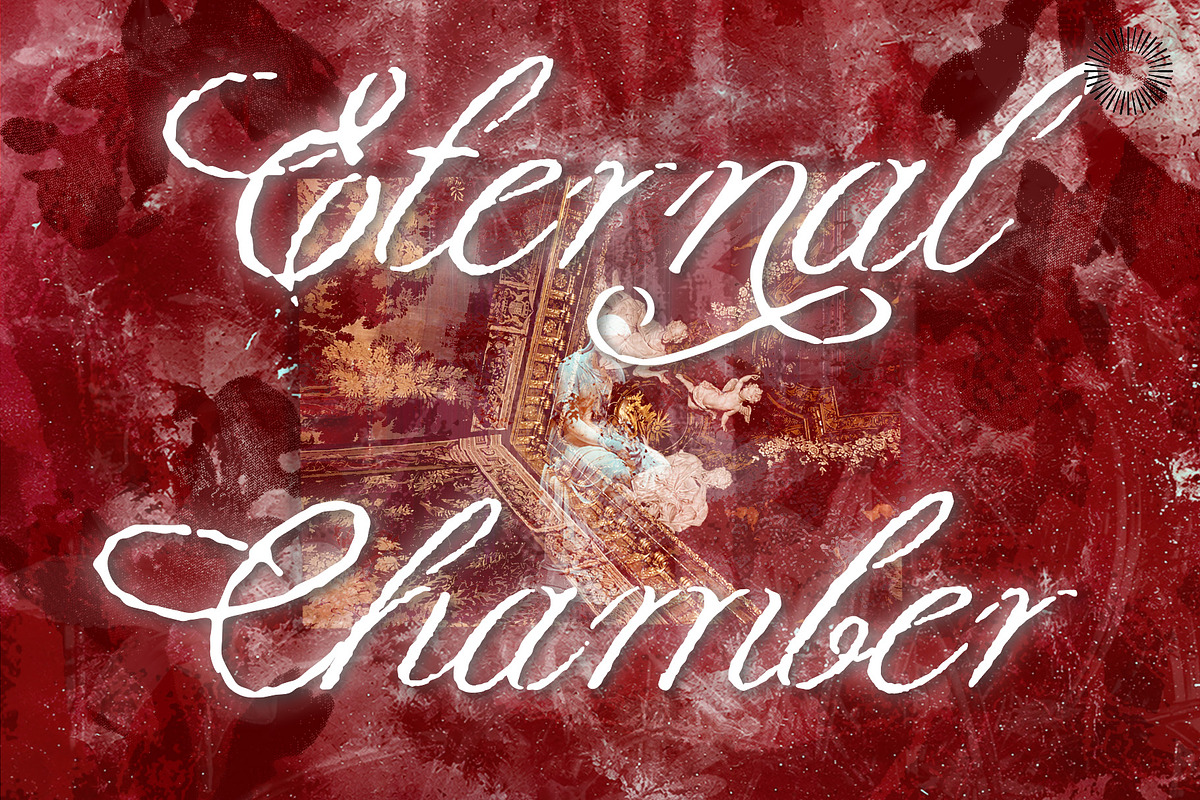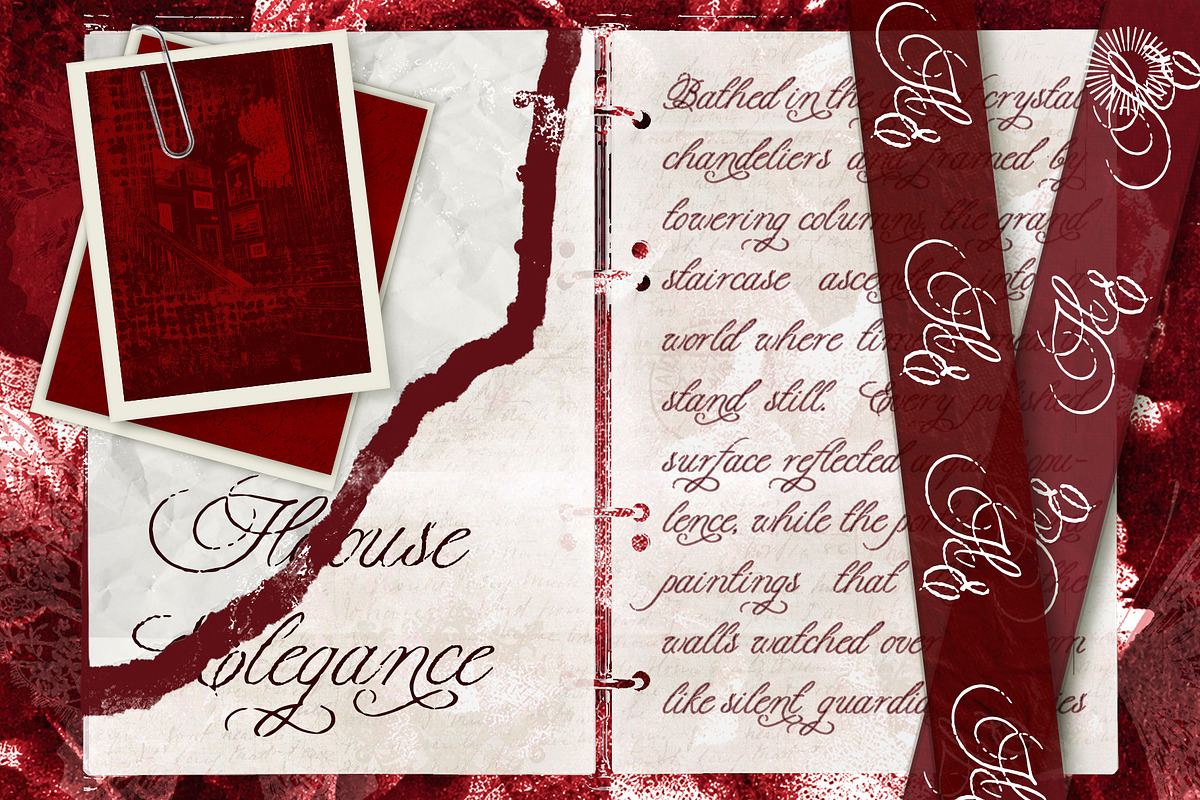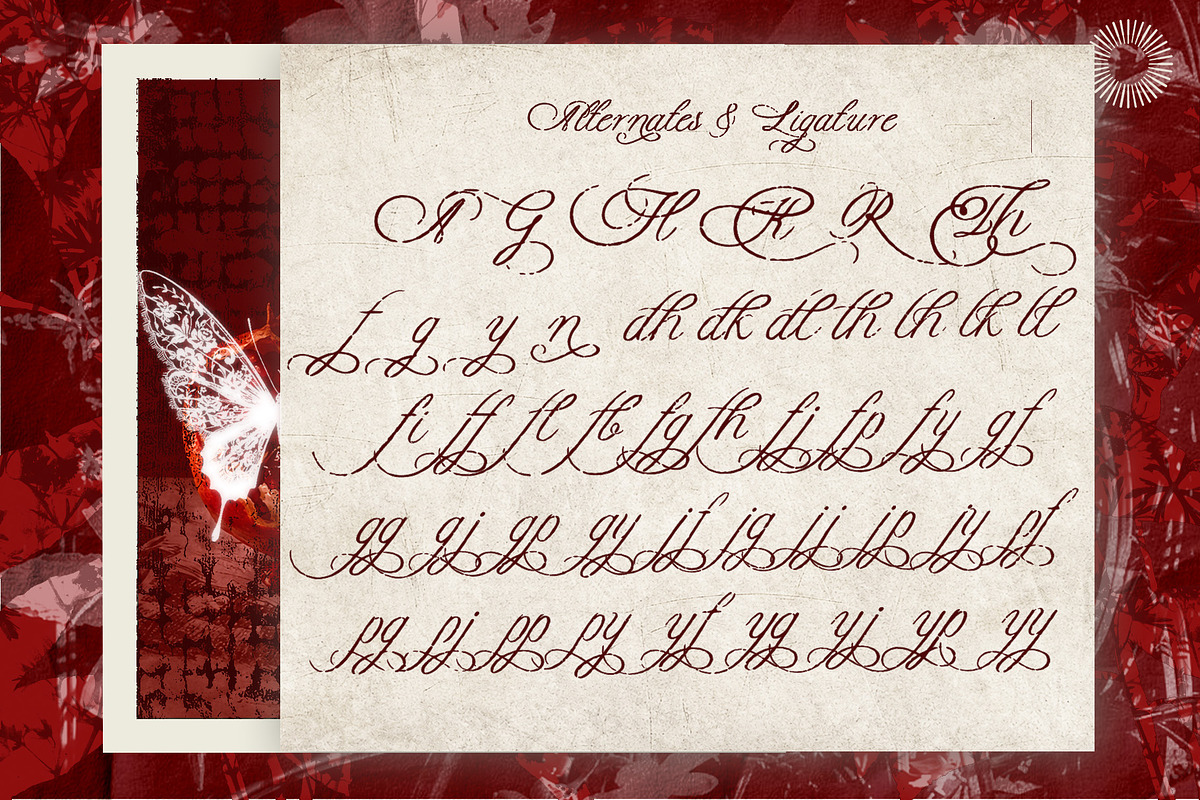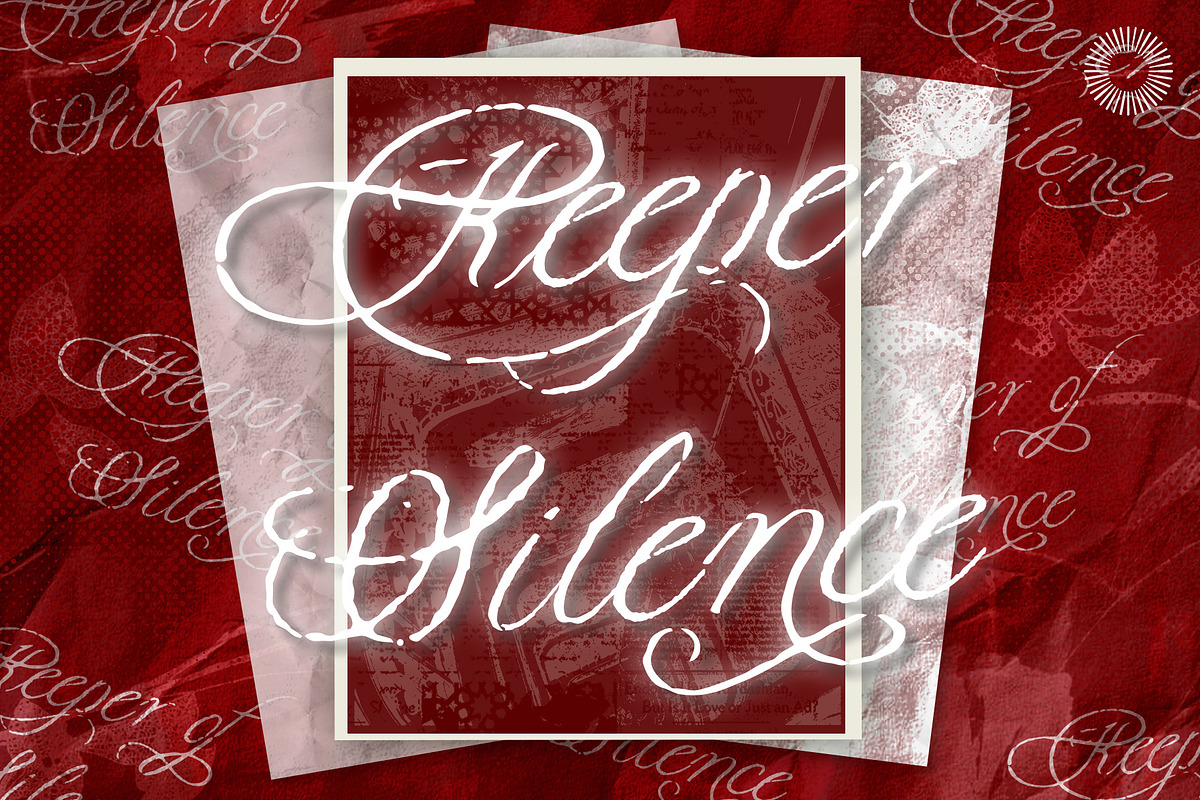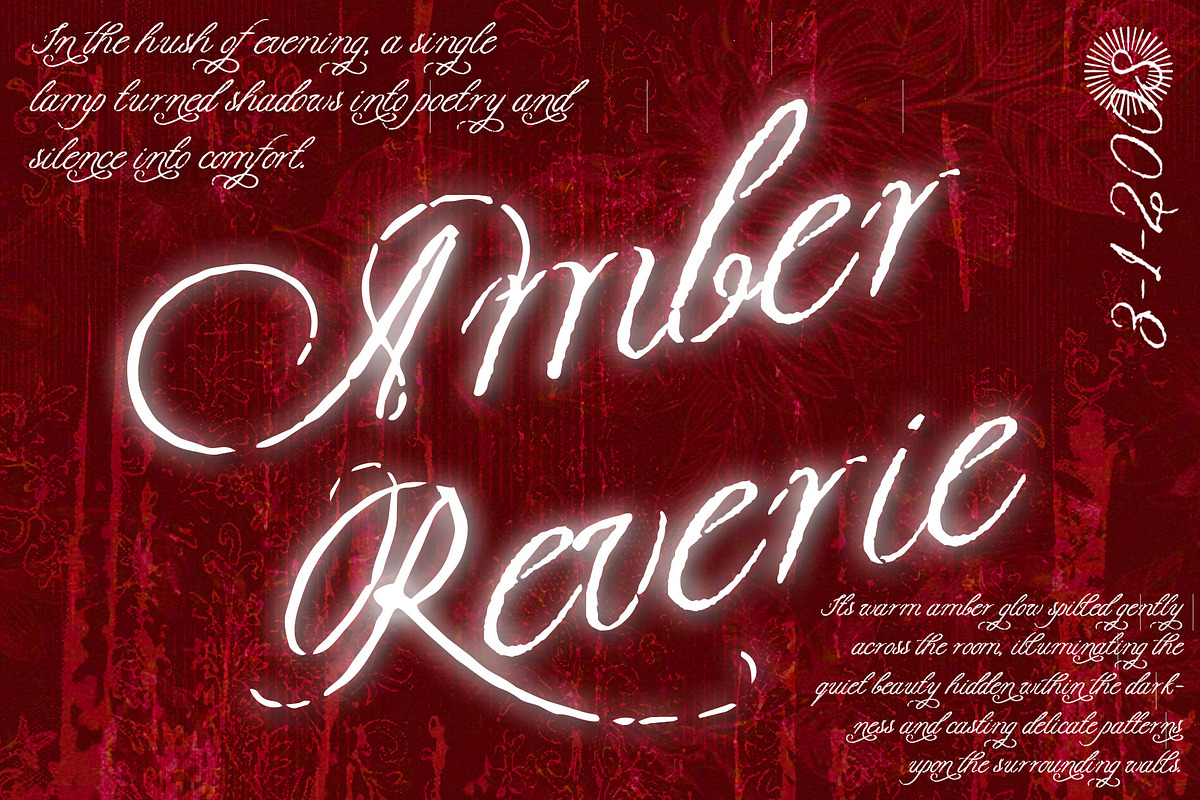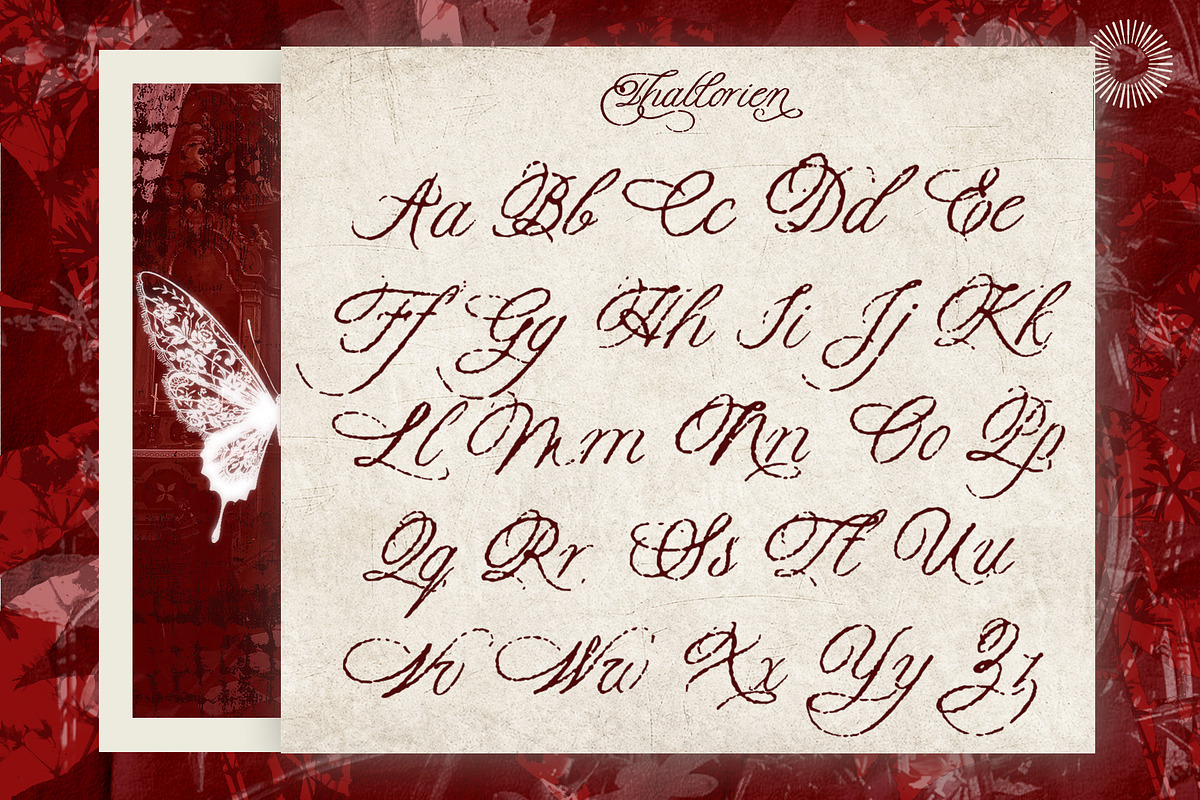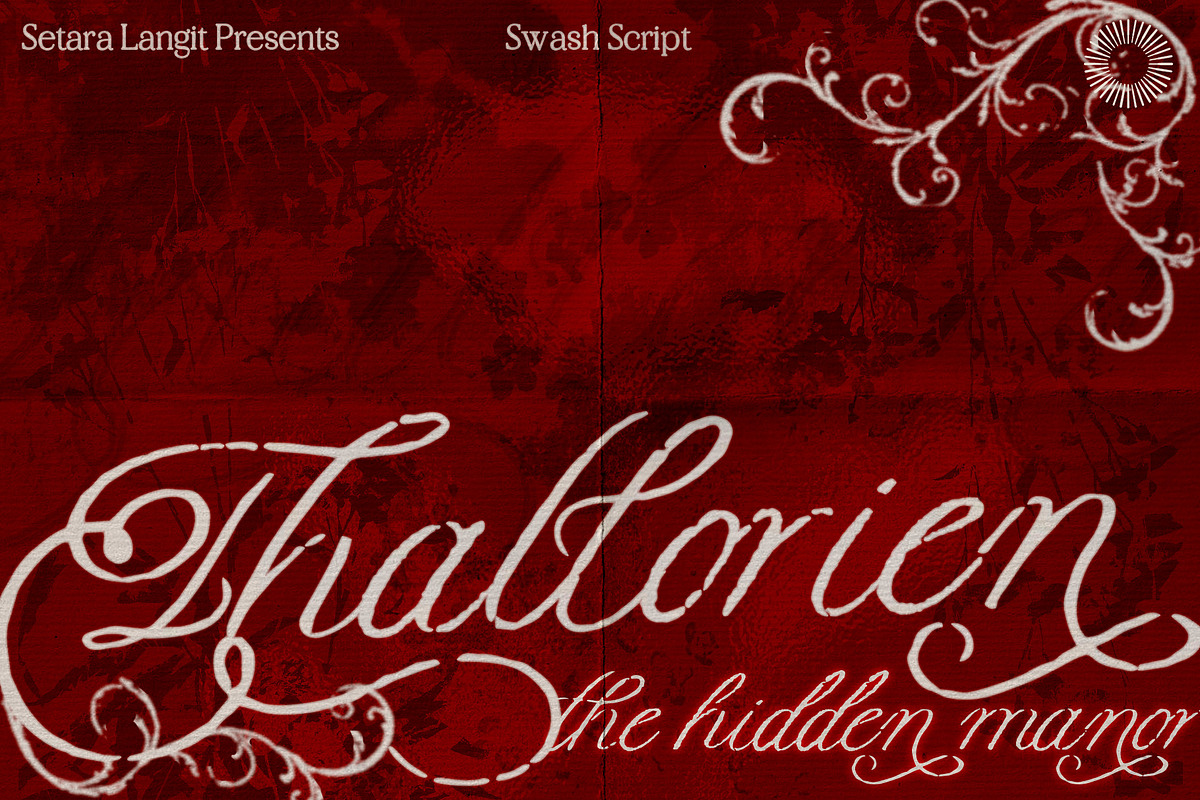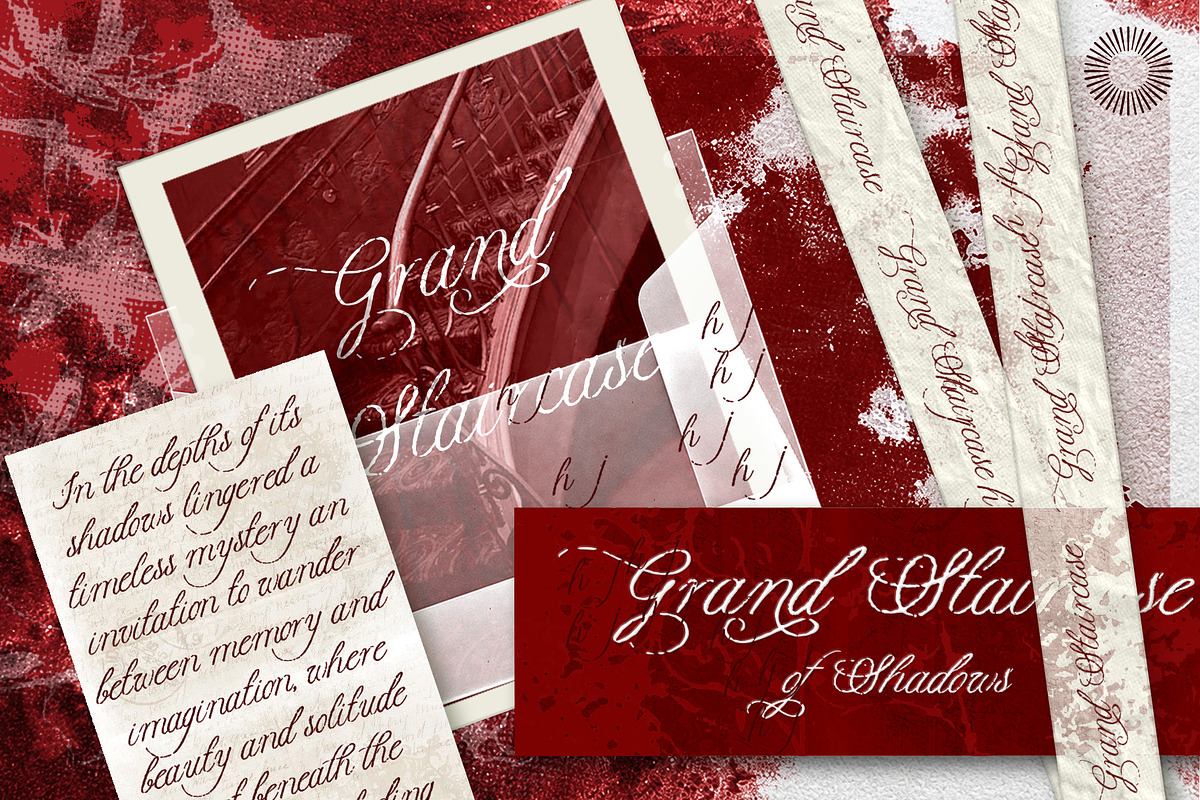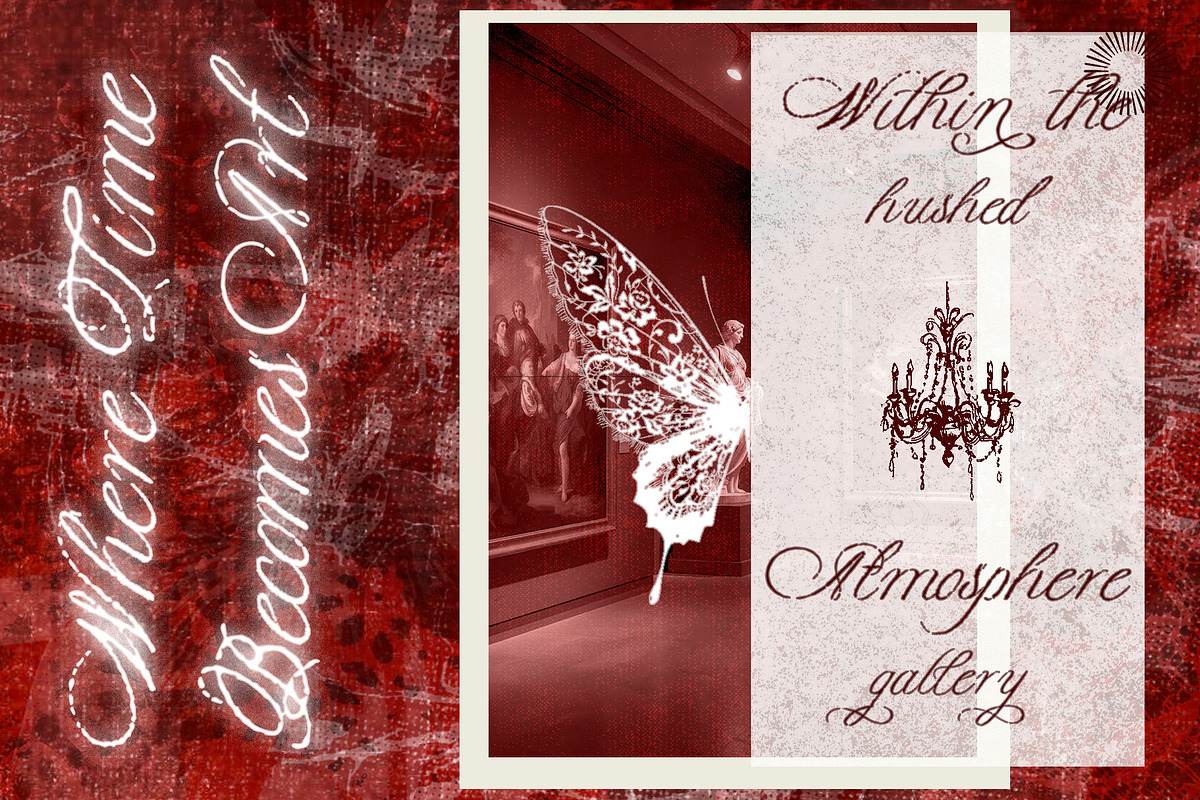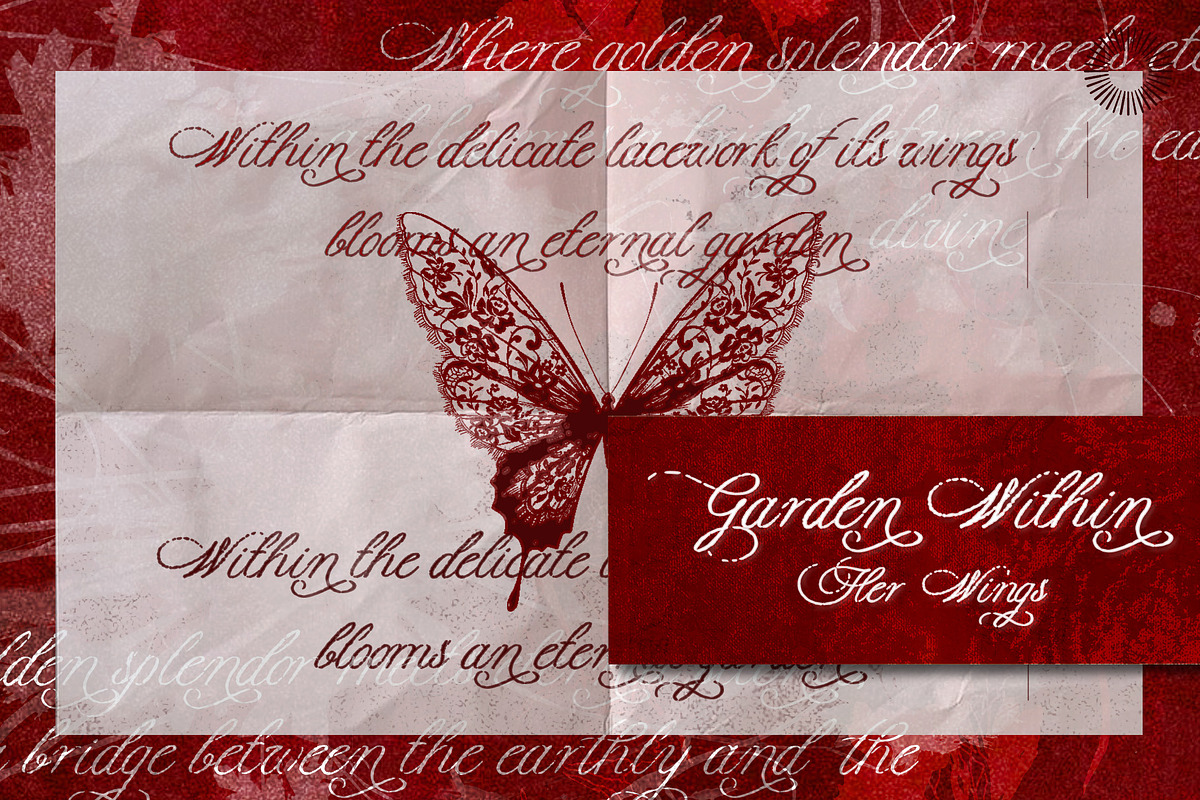
Thallorien - Elegant Storytelling
Thallorien is an elegant fantasy script font inspired by medieval manuscripts, enchanted folklore, and timeless calligraphy. Featuring flowing letterforms, graceful swashes, and refined ornamental details, it captures the beauty of classic storytelling with a luxurious, romantic touch.
Designed to evoke the charm of ancient kingdoms and handwritten legends, Thallorien blends expressive calligraphy with sophisticated elegance. Its beautifully crafted curves and decorative flourishes make it perfect for creating memorable typography that feels magical, timeless, and refined.
Whether you're designing fantasy book covers, luxury branding, wedding stationery, editorial layouts, or premium packaging, Thallorien brings an enchanting presence to every project.
Fantasy book covers, branding, logos, wedding invitations, editorials, luxury packaging, gaming projects, stationery, cosmetics, invitations, historical themes, and premium visual identities.